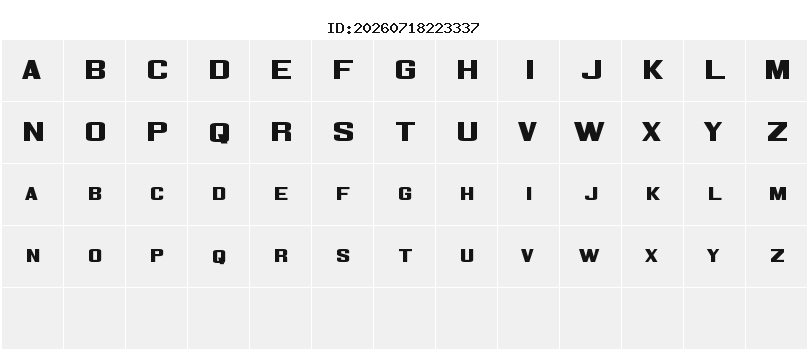
About Corporate HQ.ttf
Corporate HQ.ttf is a modern, elegant sans-serif font designed for ultimate readability and visual harmony. Perfect for branding, headlines, web design, and print materials.